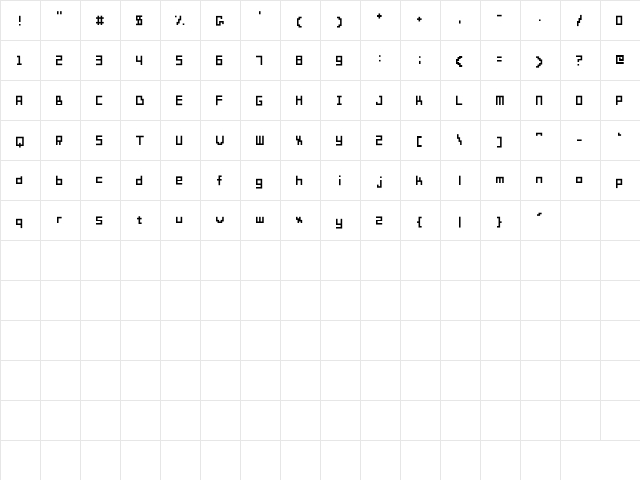
Micro Bit Regular
Design Context for Micro Bit Typeface
Micro Bit takes a measured approach to typography — its balanced proportions and neutral character make it a reliable workhorse for both digital and print work.